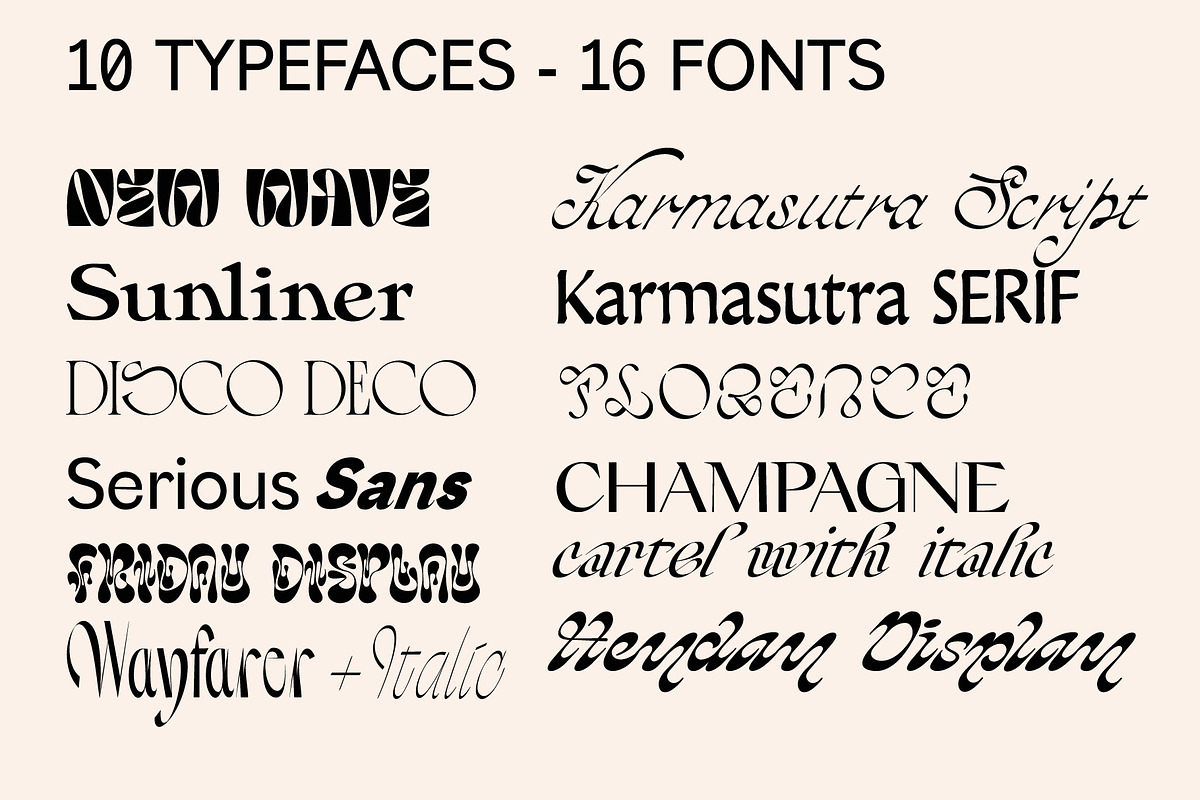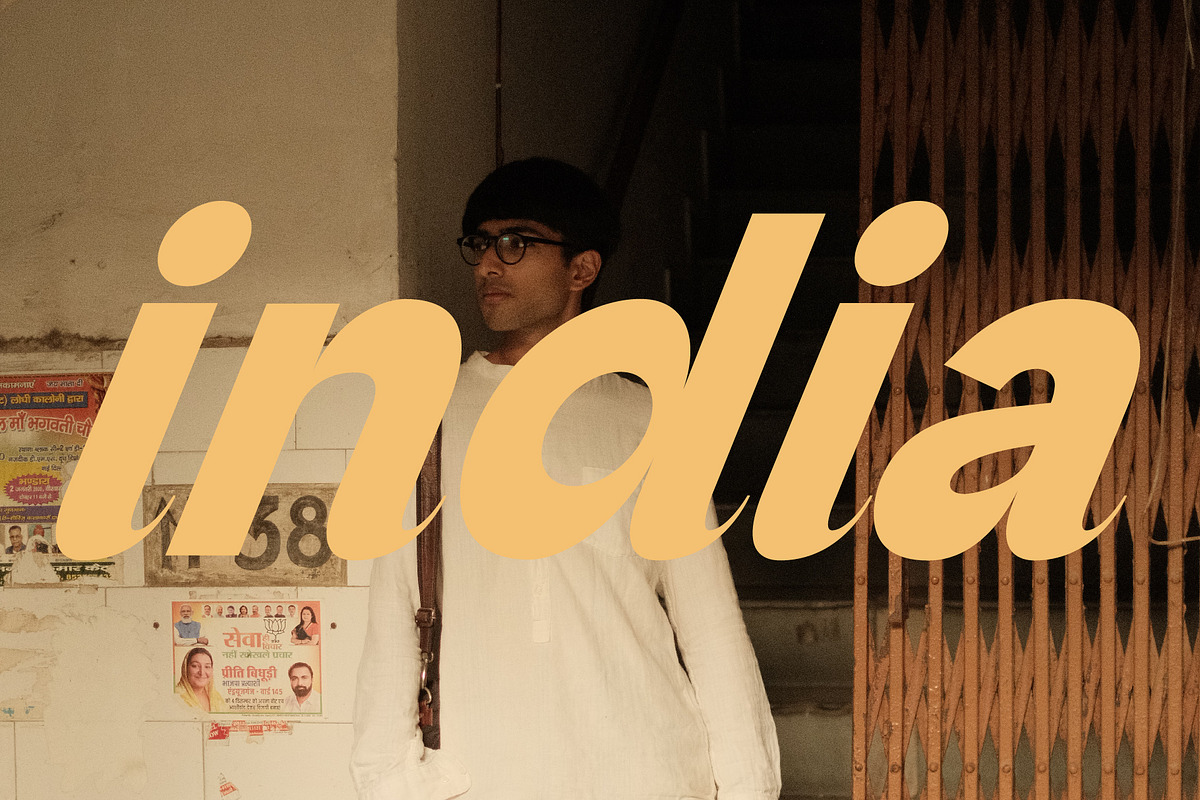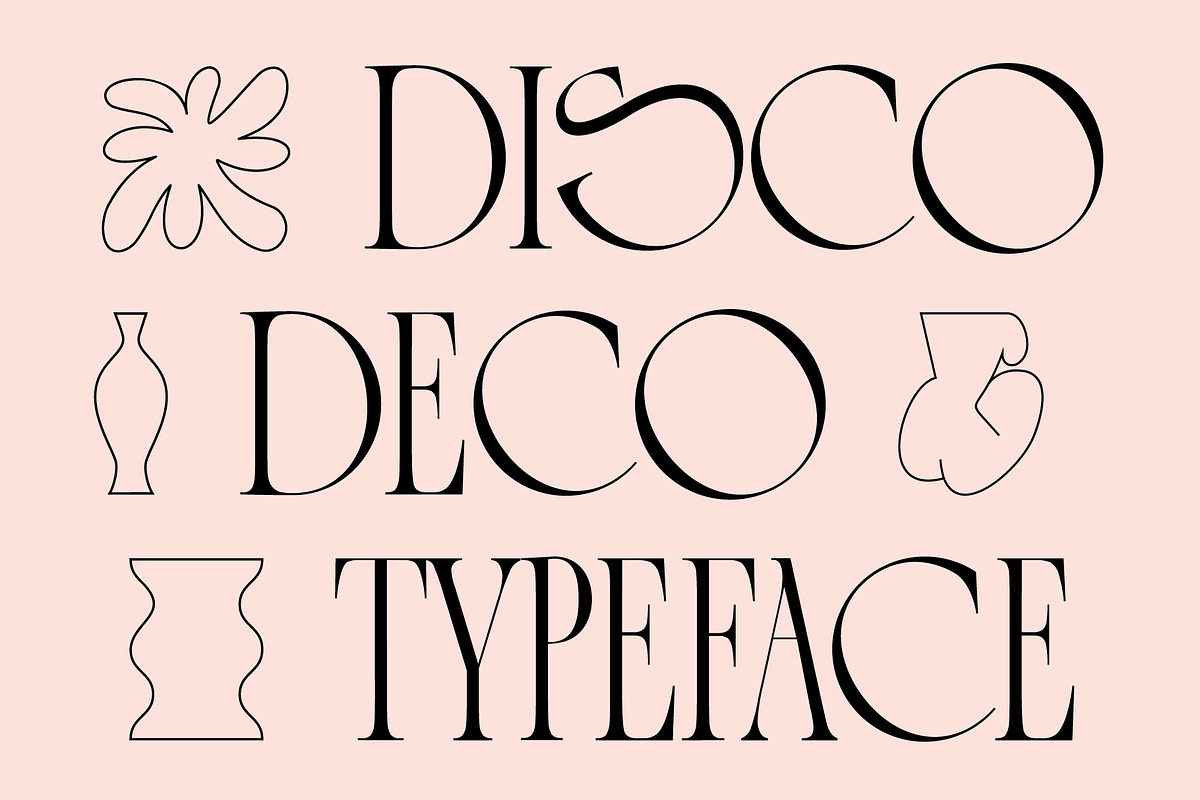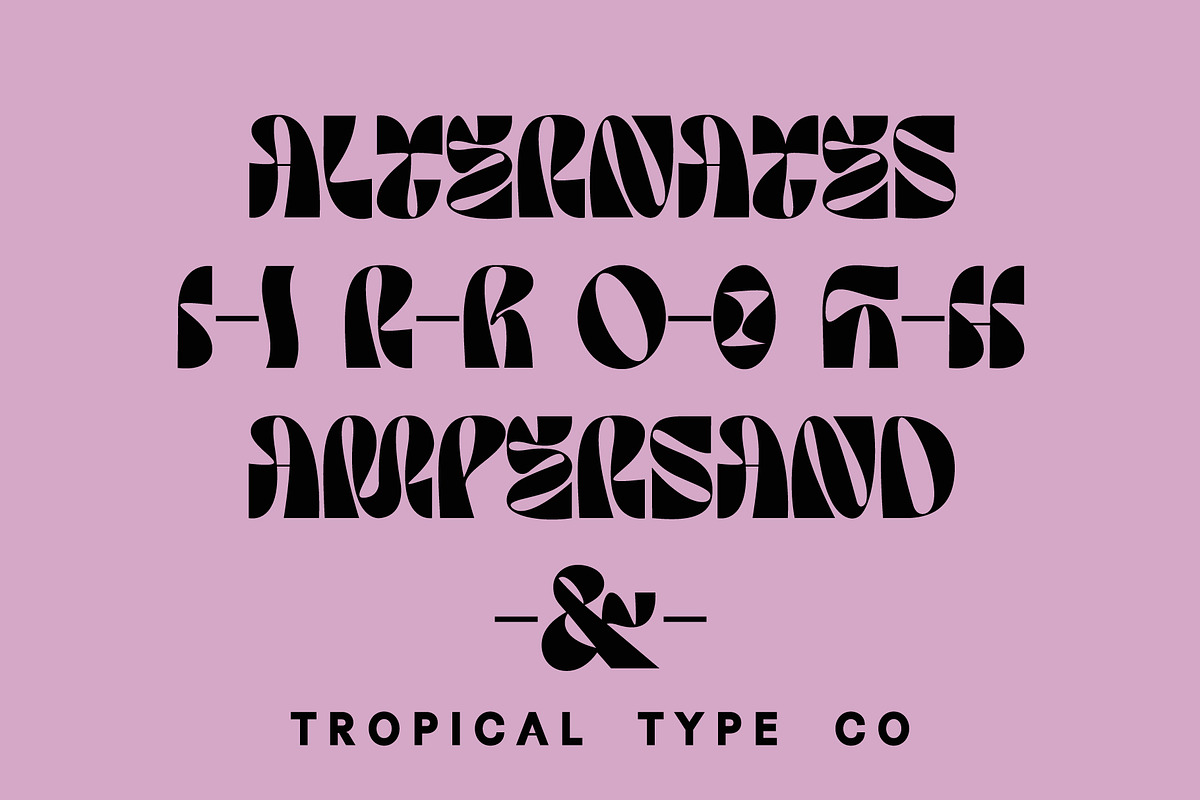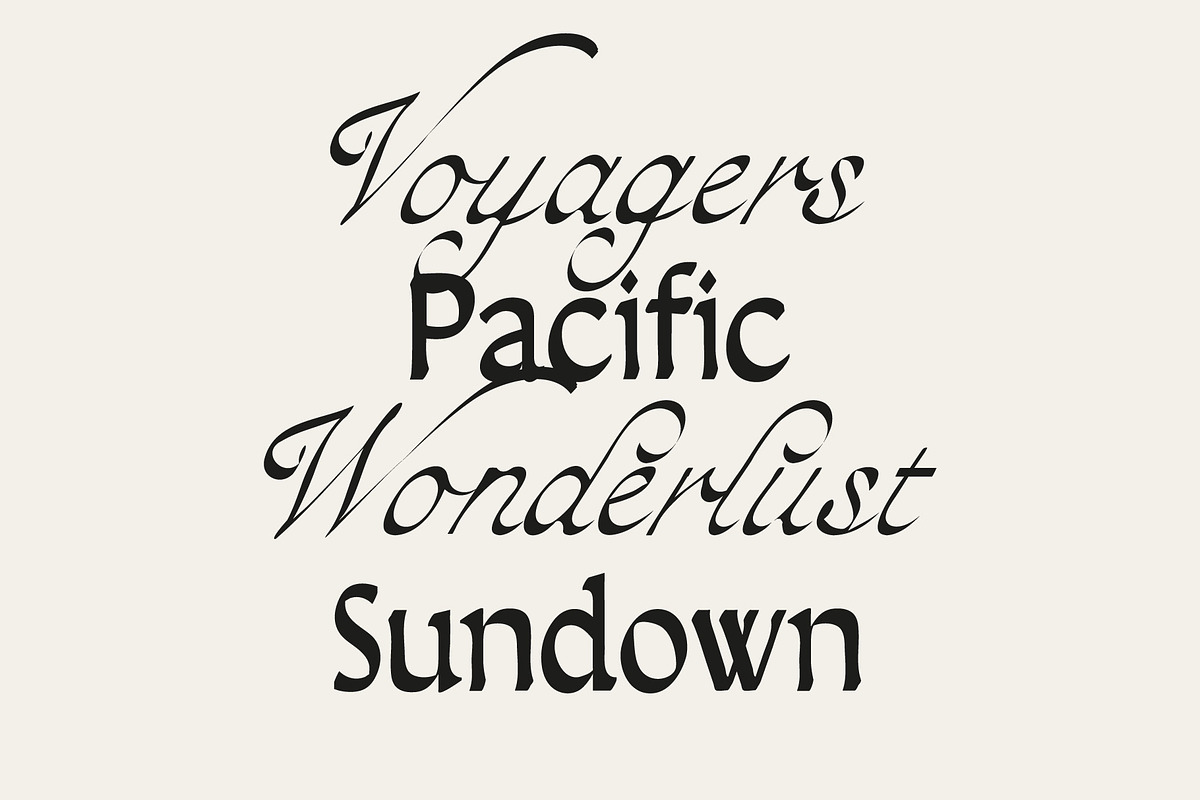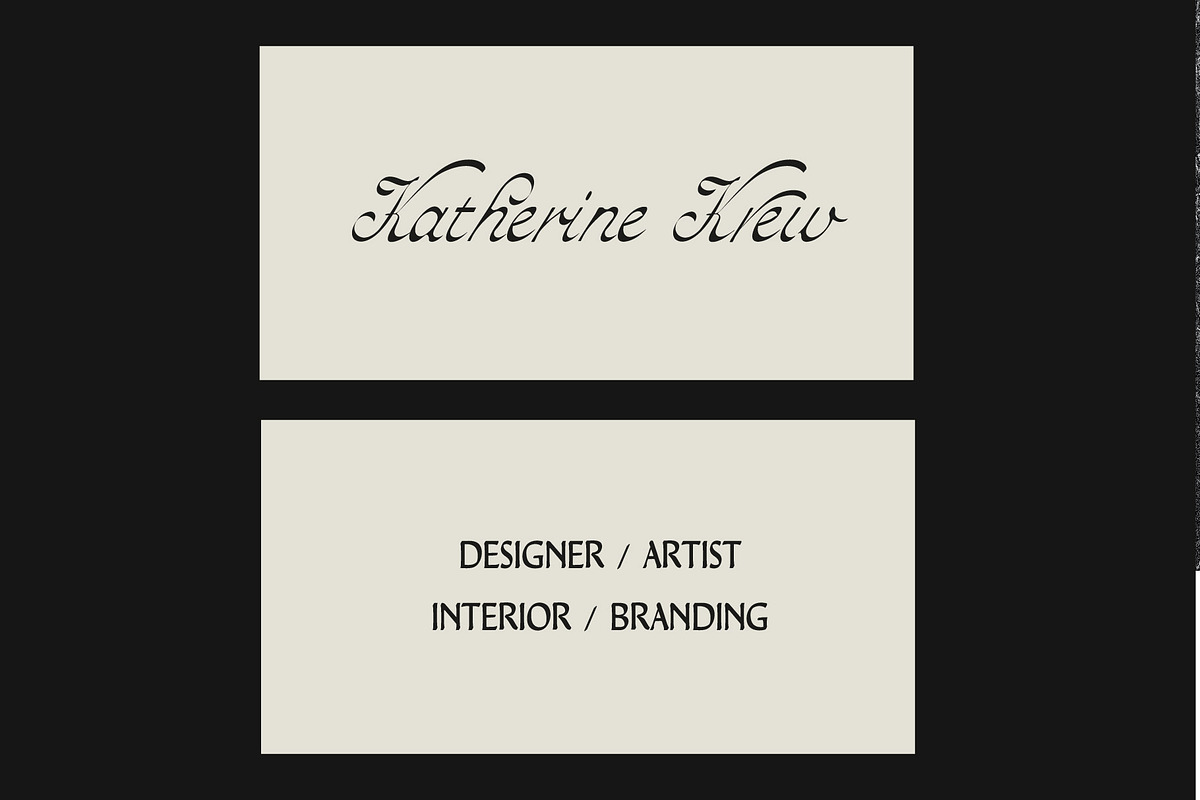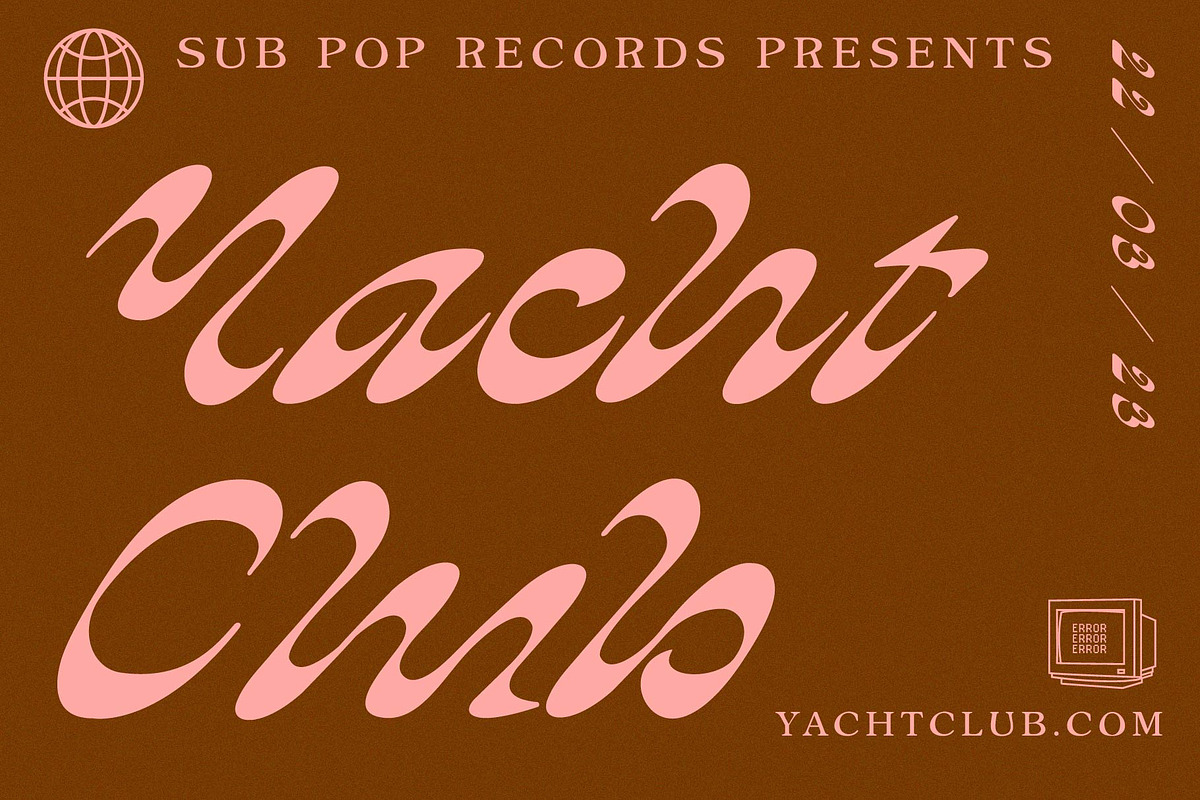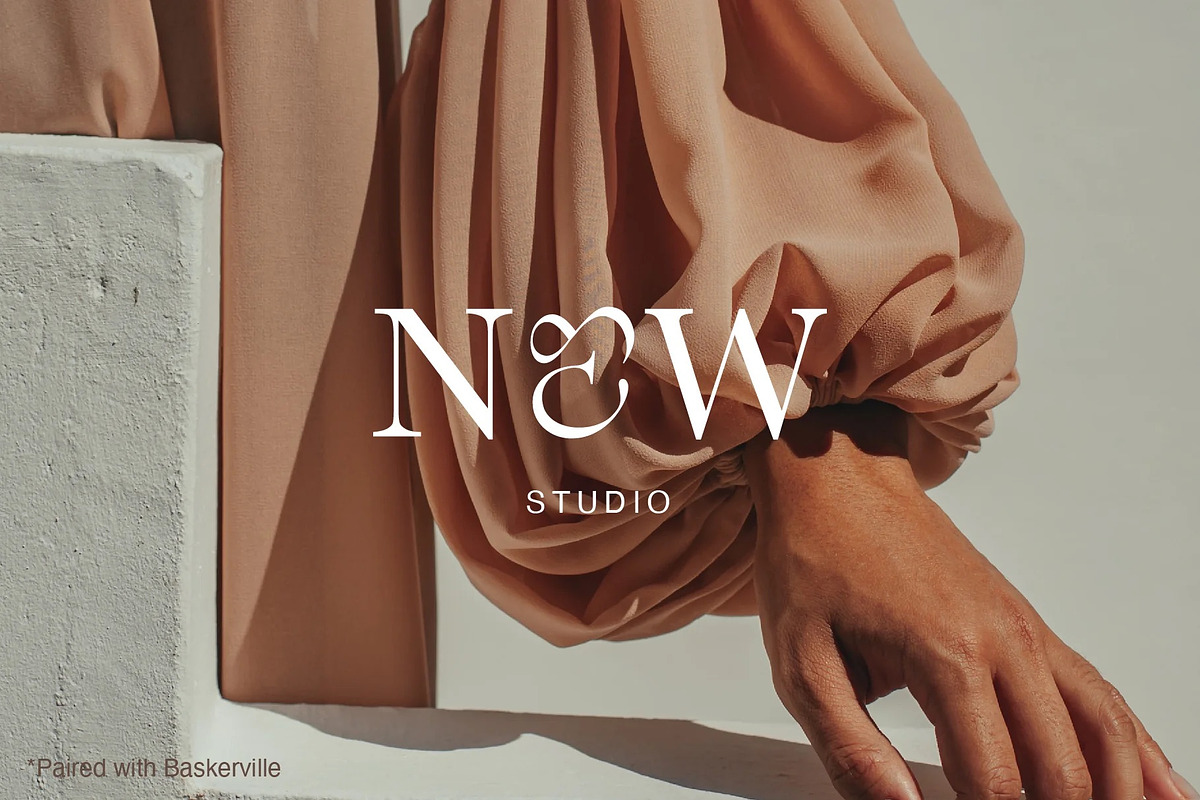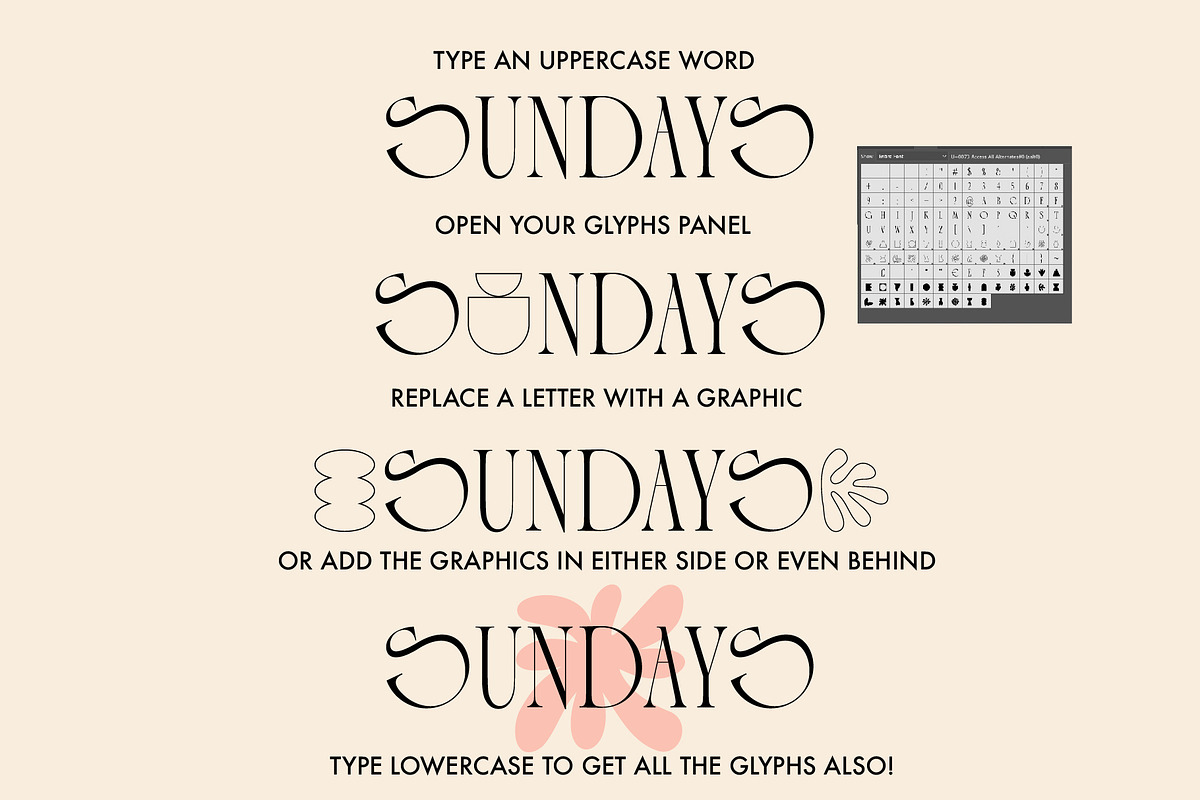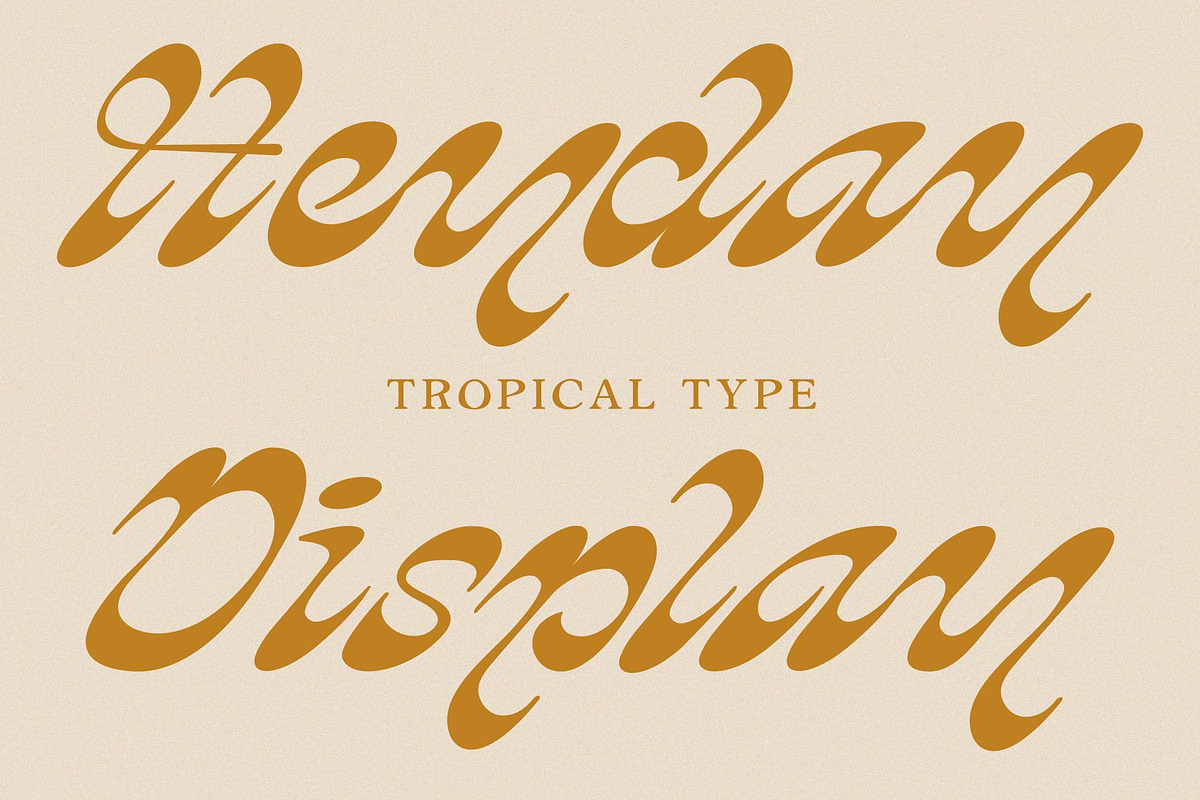
THE ECLECTIC FONT COLLECTION
ECLECTIC FONT COLLECTION The Eclectic Font Collection is 10 typefaces ,16 fonts of my latest work! Chic, Hippy, Experimental, Retro, Classic. There is a bit of everything in this bundle! Save some cash and grab this collection!
Fonts included:
- NEW WAVE
- DISCO DECO
- HEYDAY DISPLAY
- SUNLINER REVIVAL
- CHAMPAGNE CARTEL
- SERIOUS SANS
- FLORENCE DISPLAY
- WAYFARER DISPLAY
- KARMASUTRA DUO
- FRIDAY DISPLAY